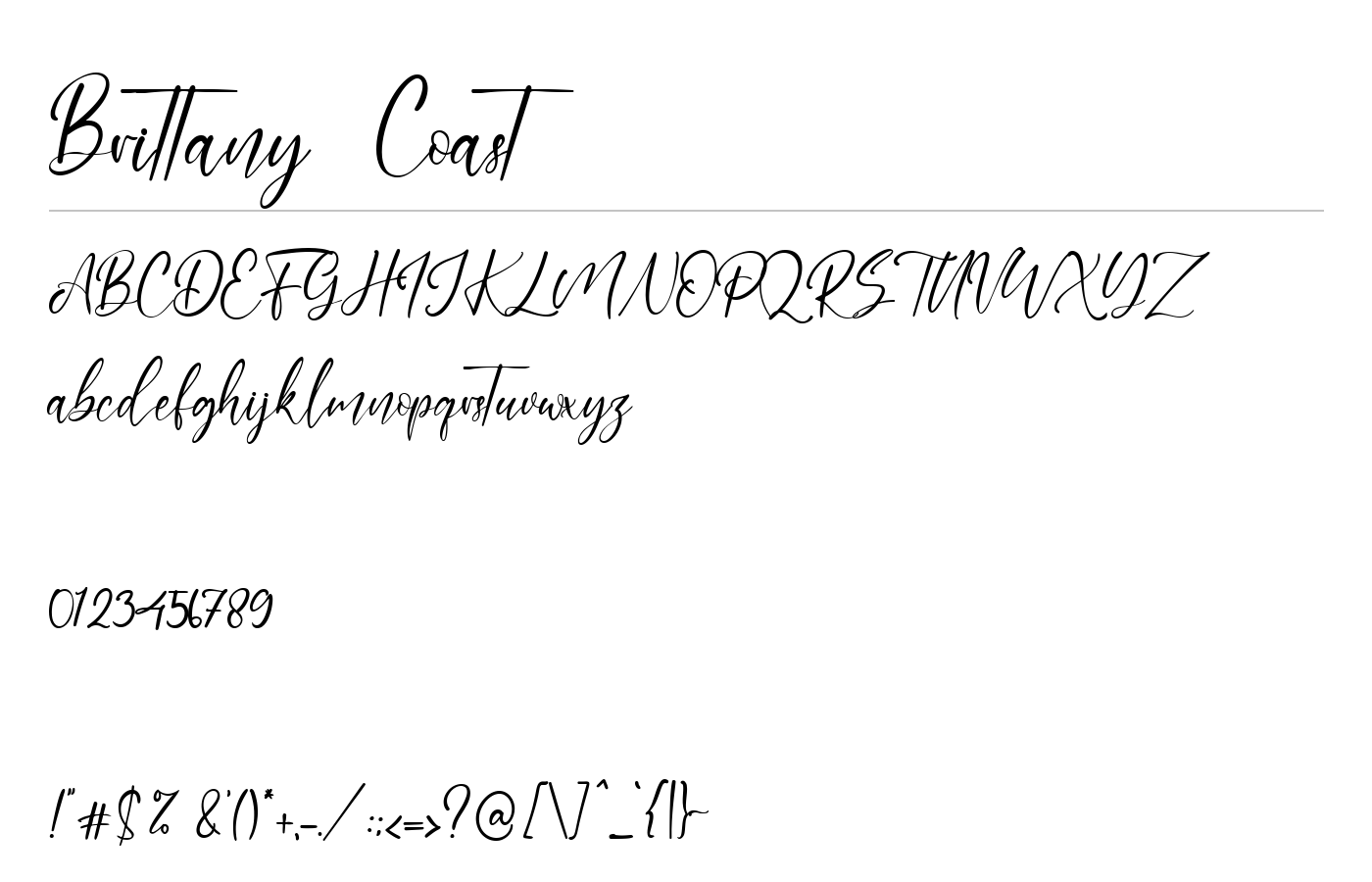
Brittany Coast is a delicate, handwritten script font that combines elegant, flowing strokes with a casual, approachable feel. Its thin, graceful lines and tall, narrow letterforms evoke a sense of sophistication and modern charm, making it ideal for fashion branding, invitations, and stylish editorial designs. This font works beautifully in contexts where a personal, refined touch is desired without sacrificing readability.
Brittany Coast Font
About Brittany Coast Font
| Font family | Brittany Coast Font |